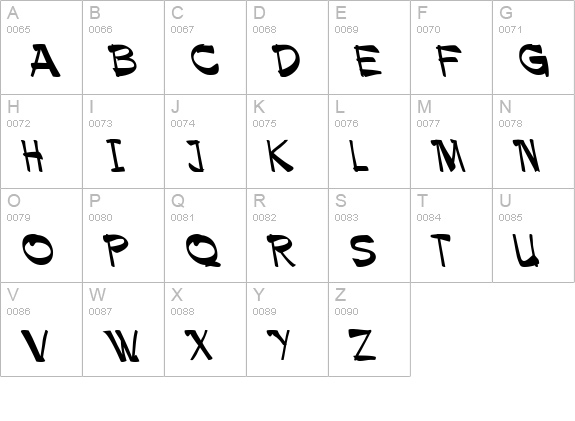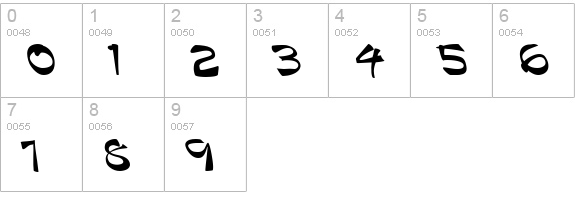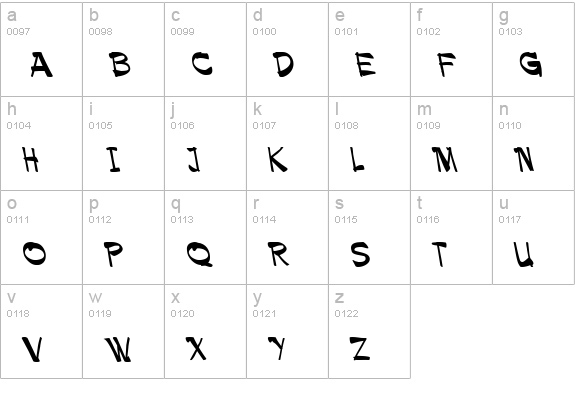
Palamino Reverse Italic Font Details
Palamino Reverse Italic is a distinctive, italic variant in the Palamino typeface family \xE2\x80\x94 well suited to design and typography projects.
The Palamino Reverse Italic font is a stunningly elegant and versatile typeface that is sure to catch the eye and captivate any audience. With its unique reverse italic style, this font offers a modern twist on traditional typography, making it perfect for a variety of design projects. The Palamino Reverse Italic font features beautifully slanted letterforms that add a touch of sophistication and grace to any text. Its sleek and fluid strokes create a sense of movement and dynamism, making it ideal for headlines, logos, branding, and more. What sets the Palamino Reverse Italic font apart is not only its impeccable design but also its availability. This font is freely available to download at FontsMarket.com, making it easily accessible to designers, creatives, and typography enthusiasts alike. Whether you're working on a professional project or simply want to add a touch of elegance to your personal designs, the Palamino Reverse Italic font is a must-have. Its versatility, unique style, and free availability make it a valuable asset in any designer's toolkit. So why wait? Download the Palamino Reverse Italic font today and elevate your designs to new heights of sophistication and visual appeal.